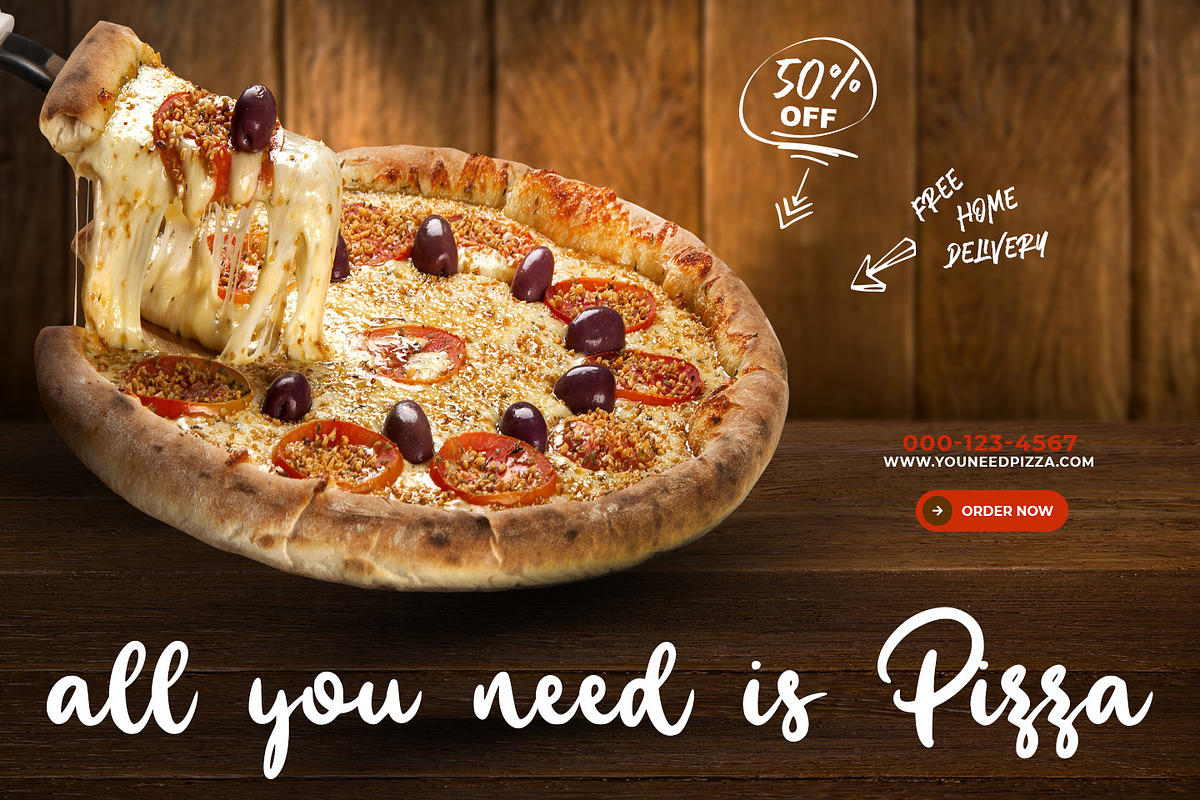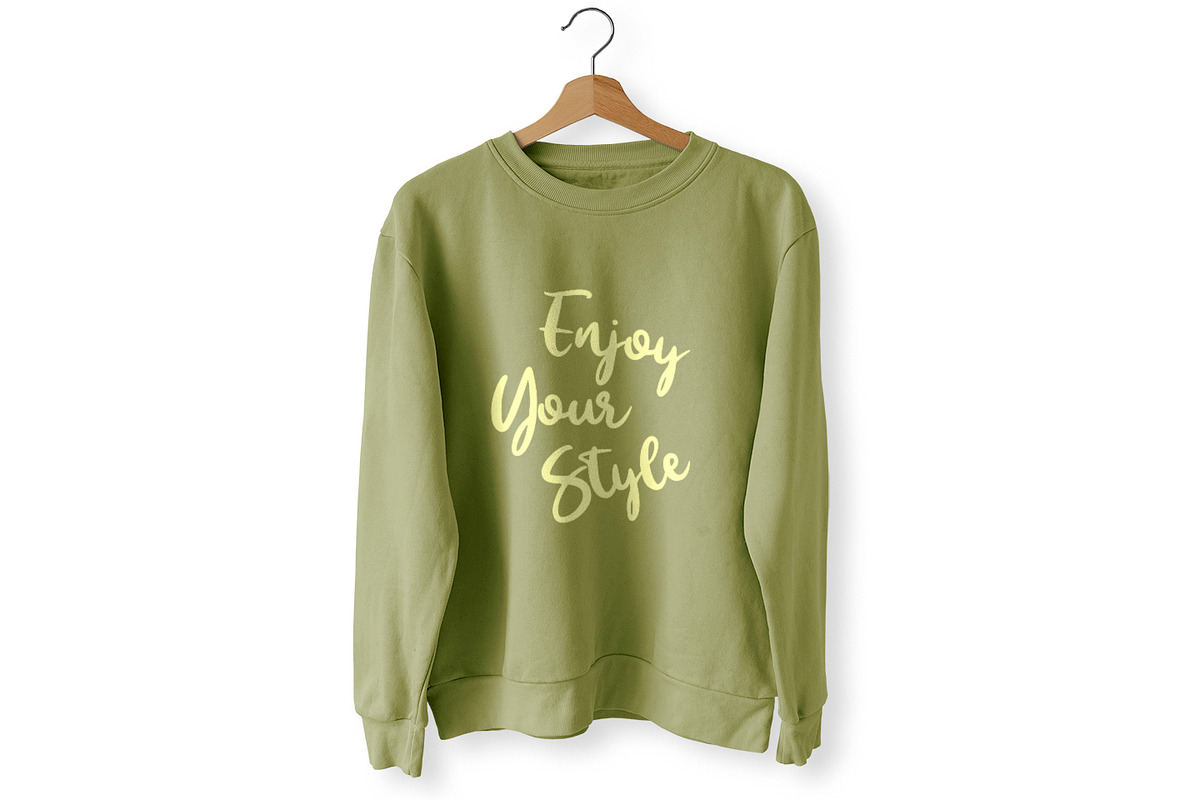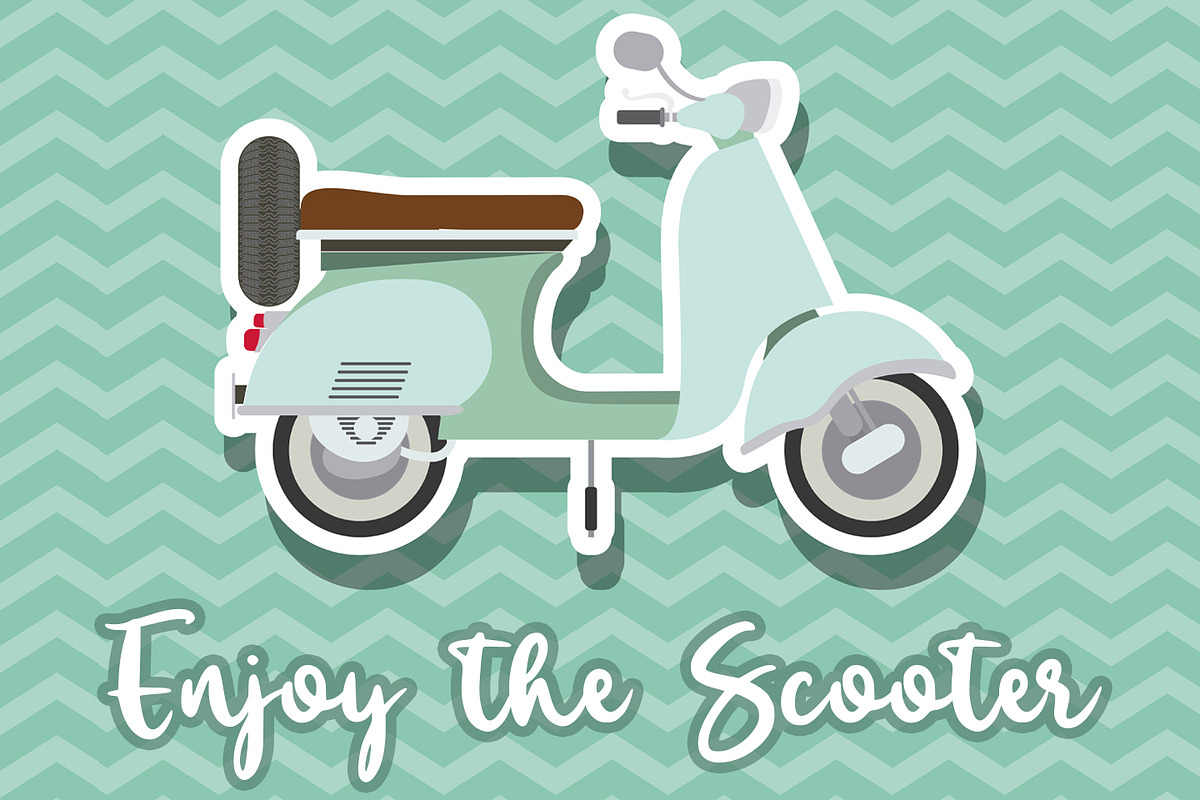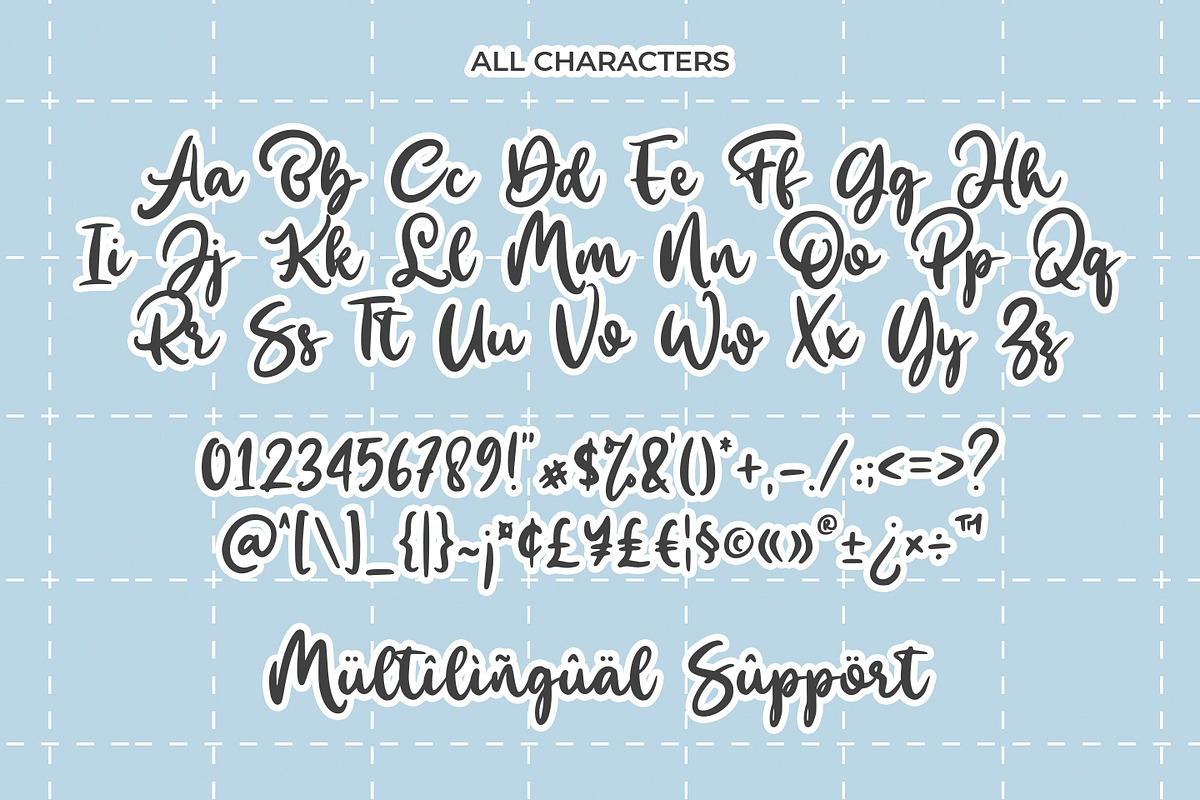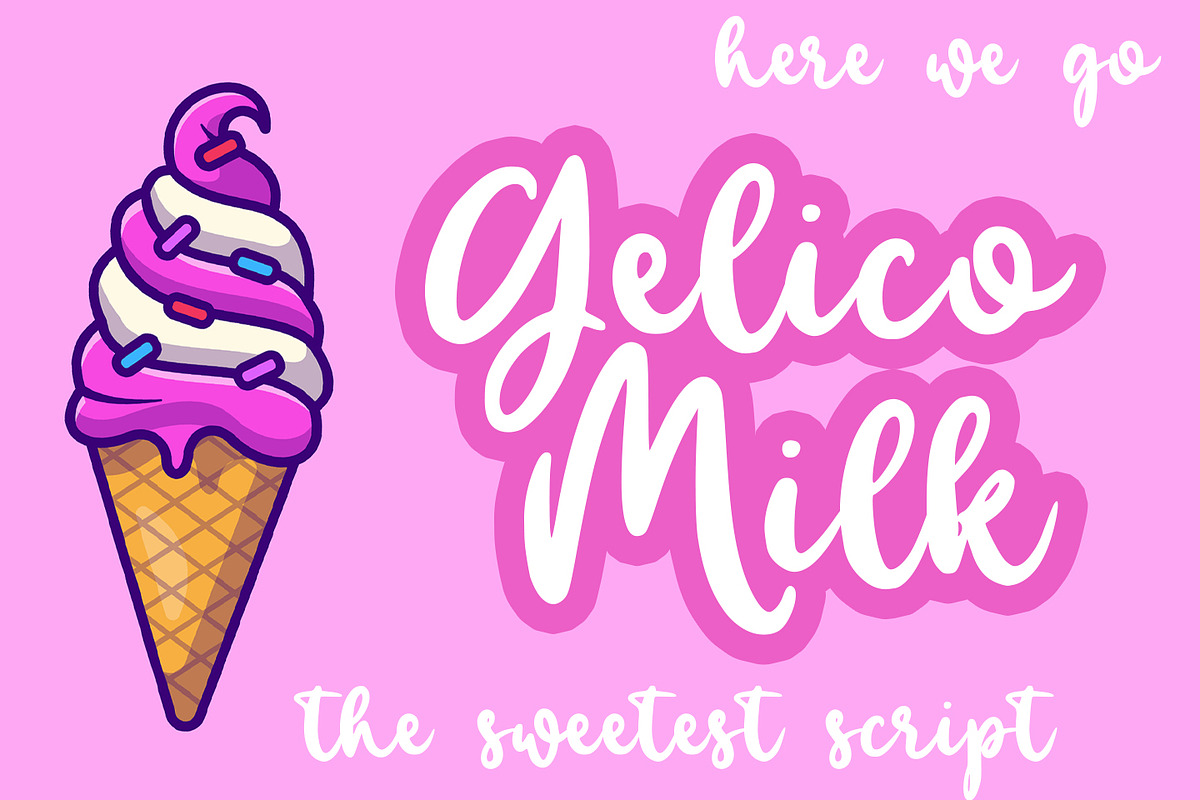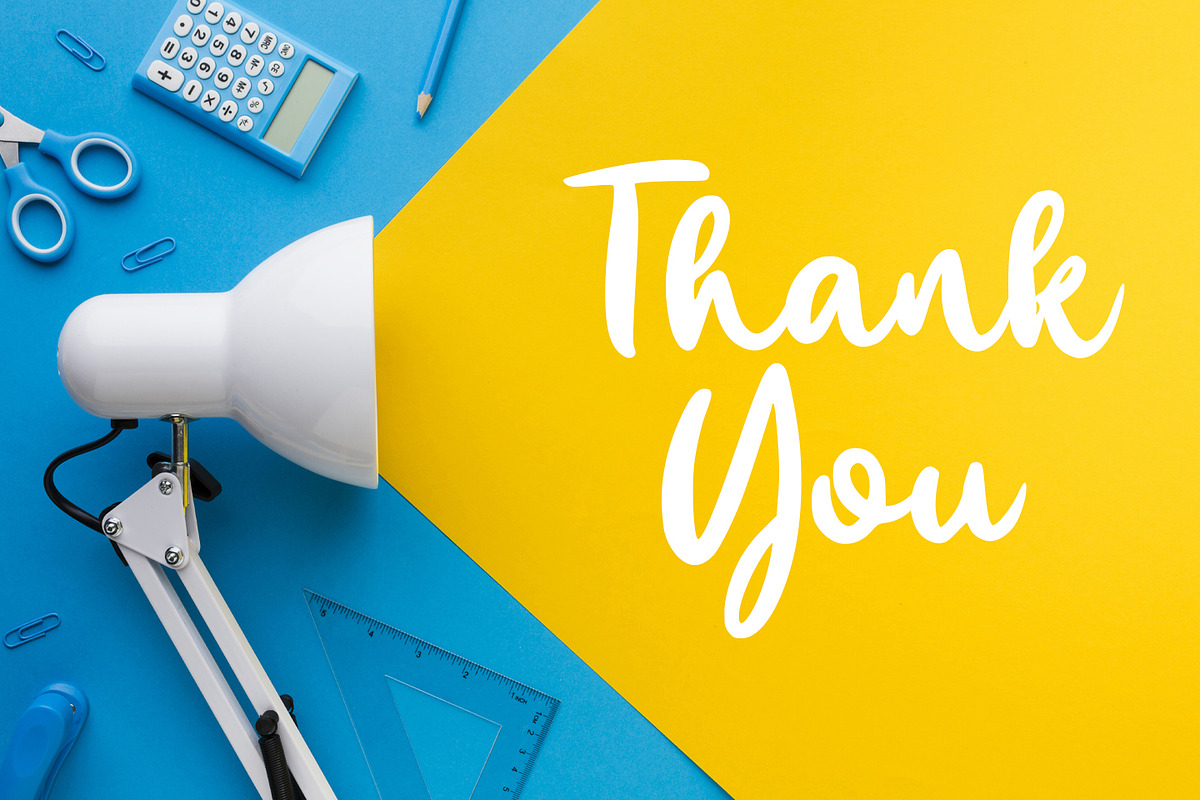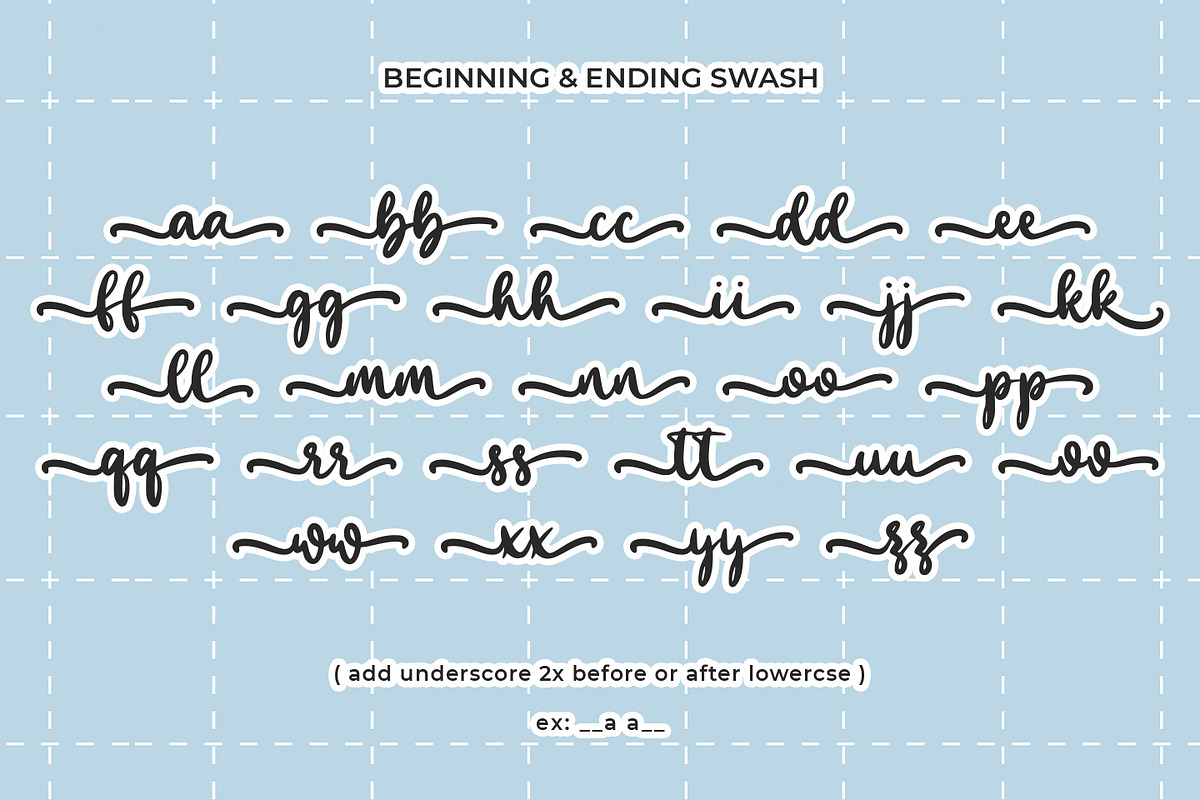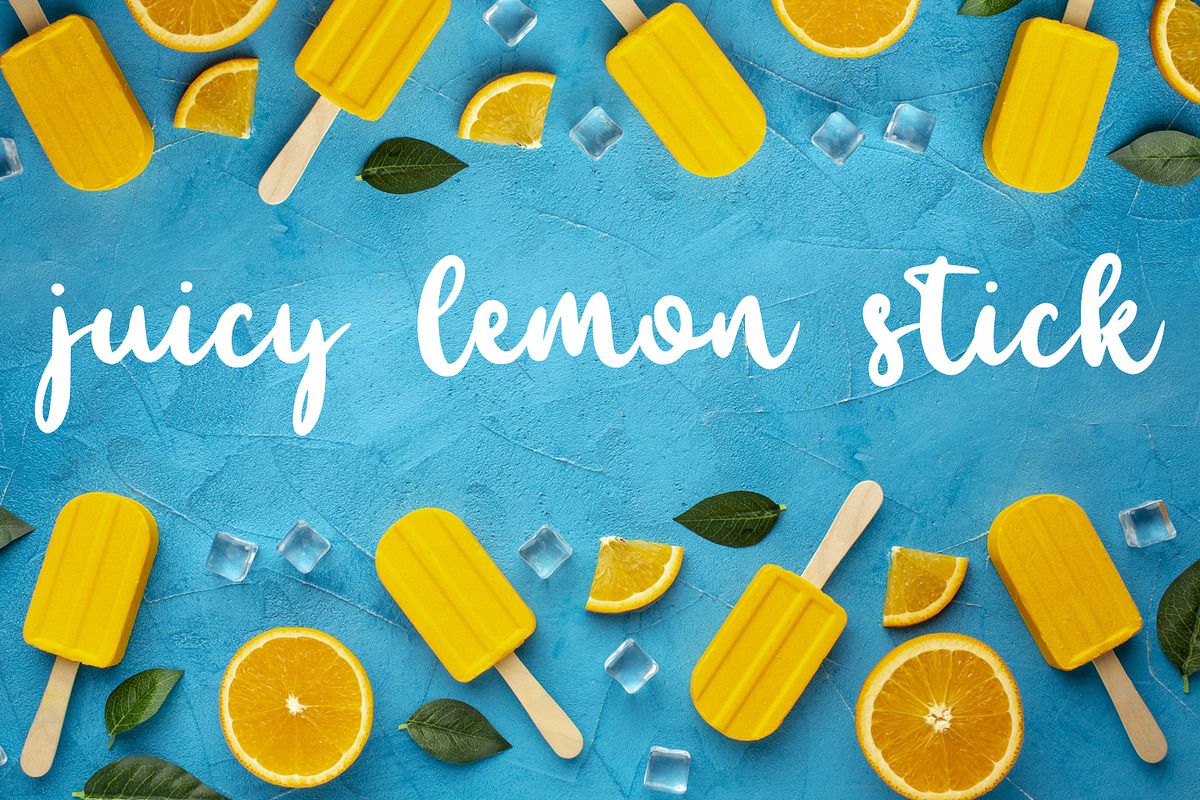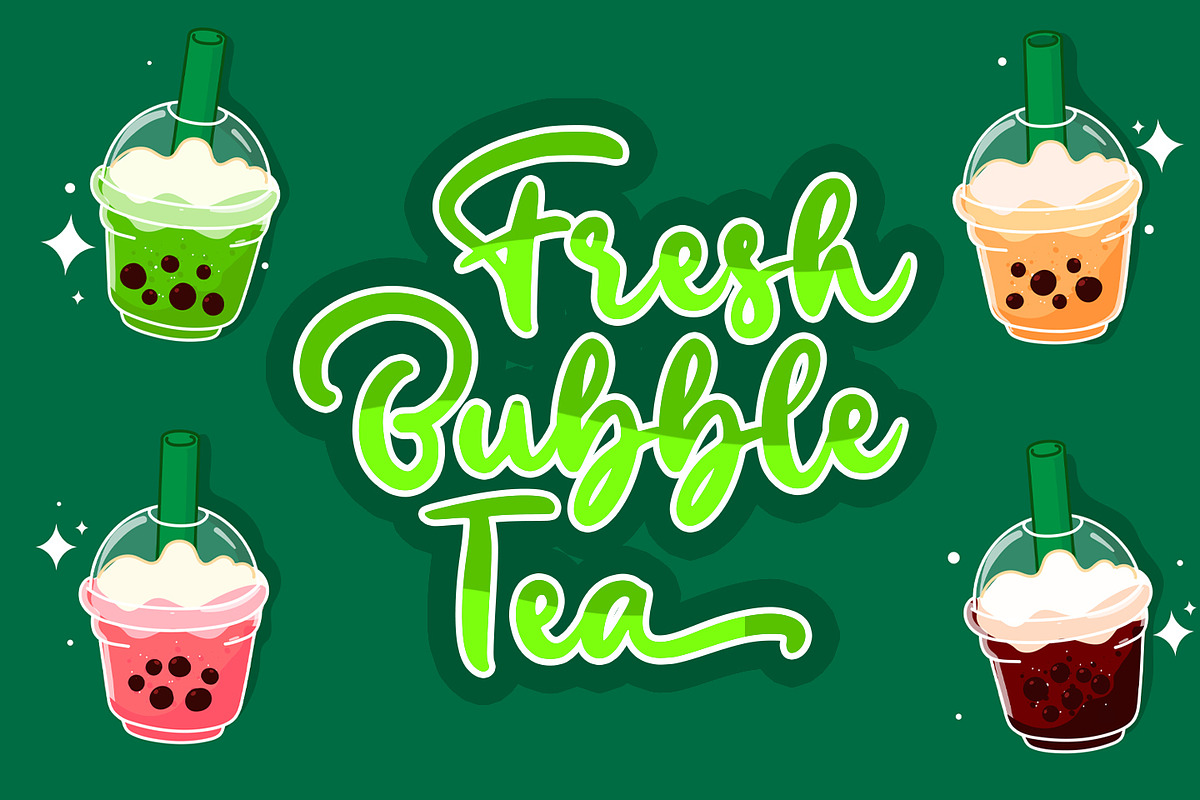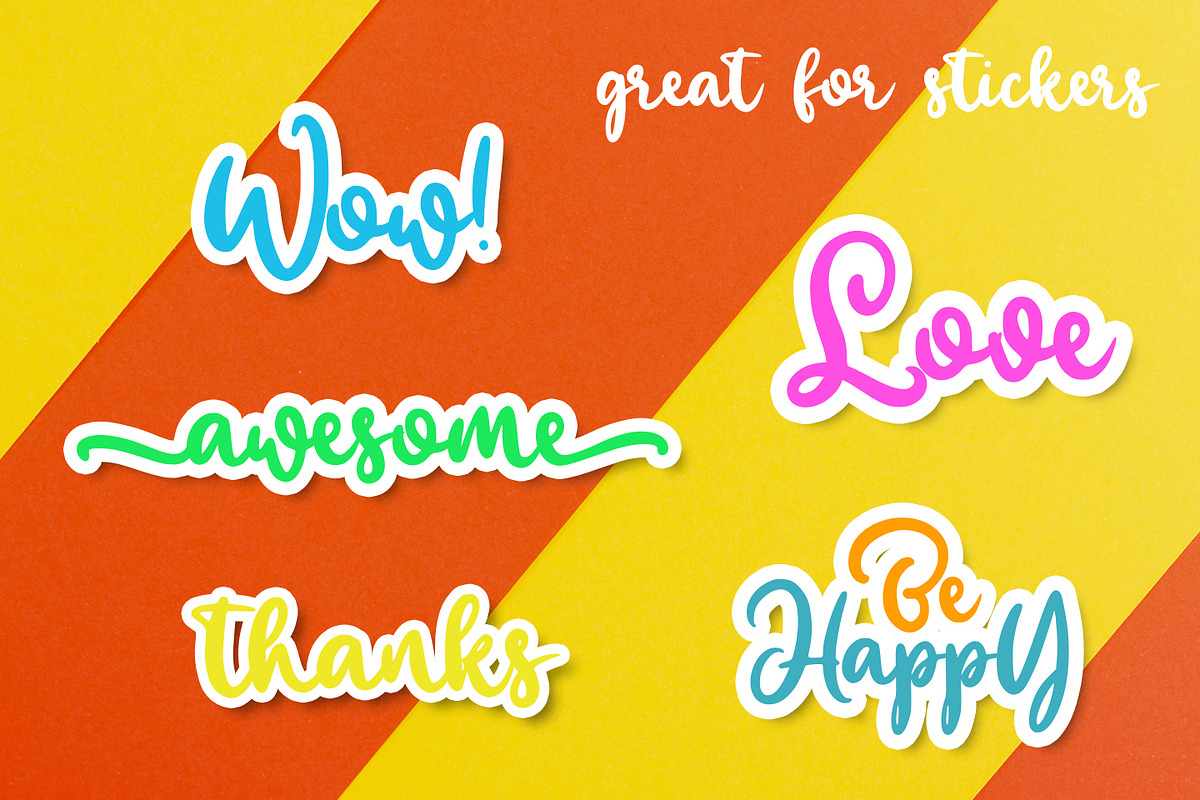
Gelico Milk
introducing
GELICO MILK - The Sweetest Script -
Gelico Milk is great for t-shirt design, sticker, tote bag design, card, banner, branding, packaging, quotes, logo, signature, social media, and anything craft project.
Lowercase
Number & Punctuations
Swash